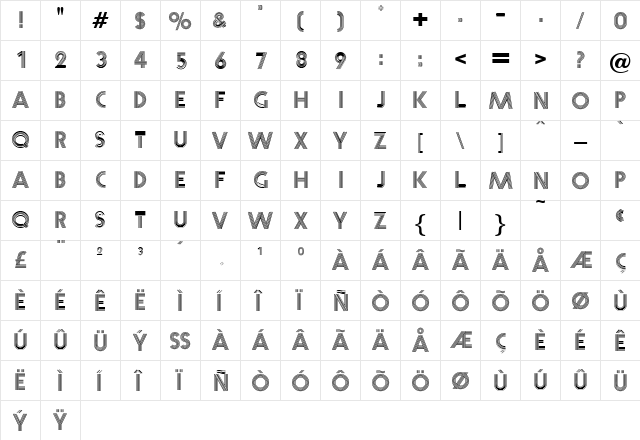
Acton DB Regular
Design Context for Acton DB Typeface
Acton DB is a composed and adaptable typeface that performs quietly and consistently across a wide range of design contexts.